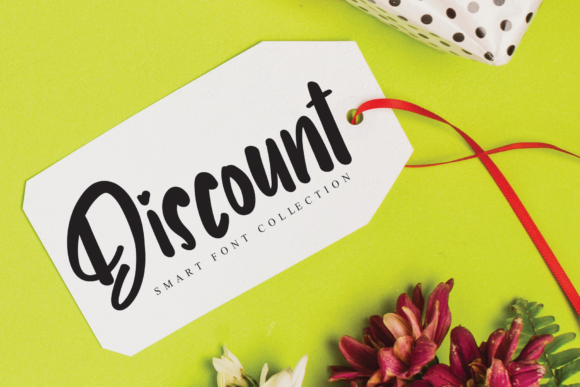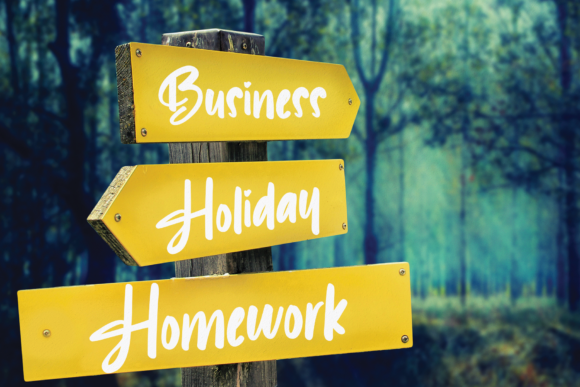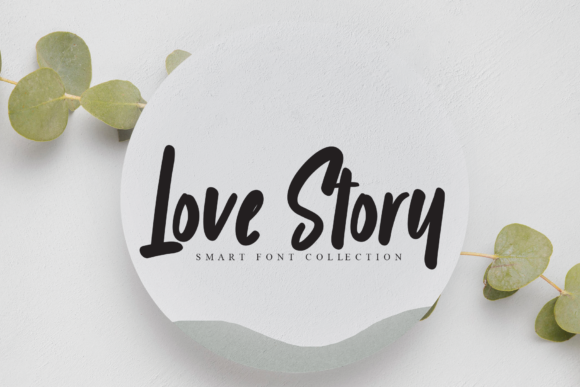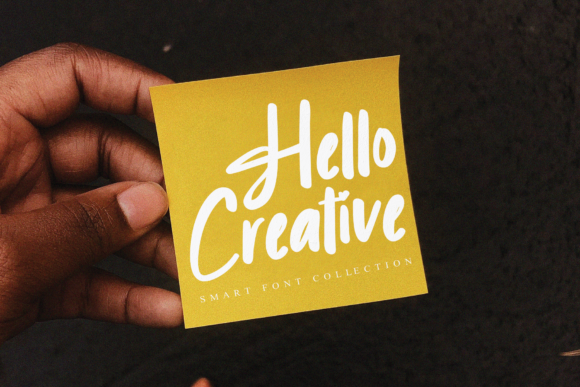
About Allentown Font
Allentown is an authentic handwritten font that brings a personal and genuine touch to your designs. With its natural and organic style, this font is perfect for a variety of creative projects, including wall displays, wedding invitations, social media posts, logos, photography, stationery, and more.
The handcrafted and imperfect letterforms of Allentown give it a unique and authentic feel. It captures the essence of a handwritten script, adding a personal and genuine touch to your designs. Whether you’re creating large-scale wall displays, elegant wedding invitations, engaging social media posts, memorable logos, captivating photography, or stylish stationery, this font will bring a sense of warmth and intimacy to your work.
Allentown’s versatility makes it suitable for a wide range of applications. It can add a personal touch to home decor, making wall displays feel more personalized and inviting. It brings an elegant and handmade feel to wedding invitations, setting the tone for a heartfelt and memorable celebration. It adds a touch of authenticity to social media posts, making your content more relatable and engaging. And it enhances the visual impact of logos, photography, and stationery, giving your brand and designs a distinct and genuine identity.
Embrace the authentic and handmade nature of Allentown and let it bring a personal and genuine touch to your designs. Incorporate this font into your projects, and you’ll see how it adds a warmth and authenticity that resonates with your audience.